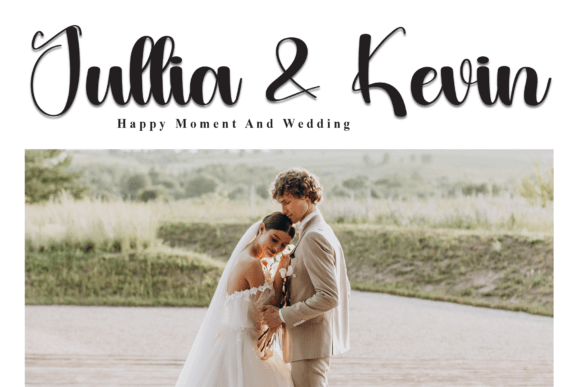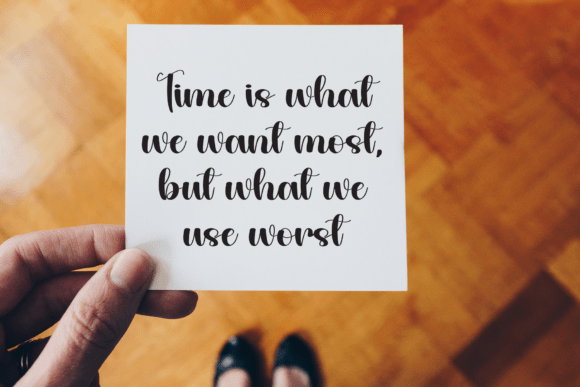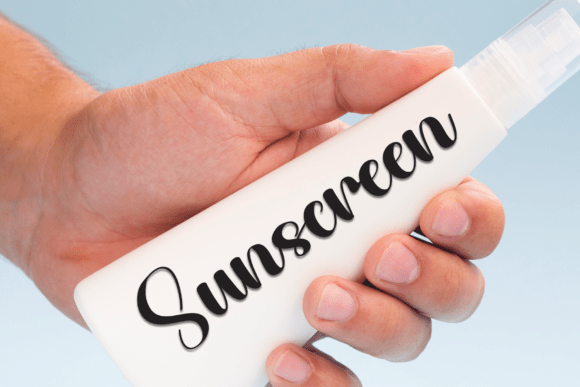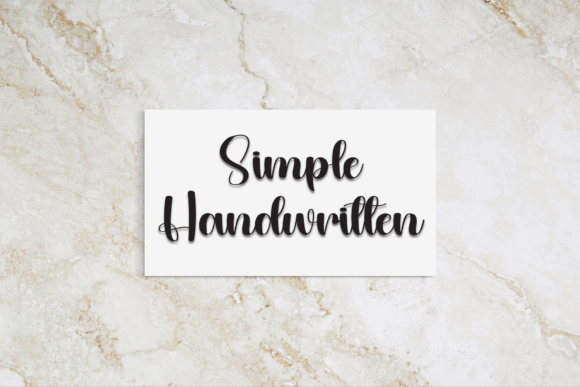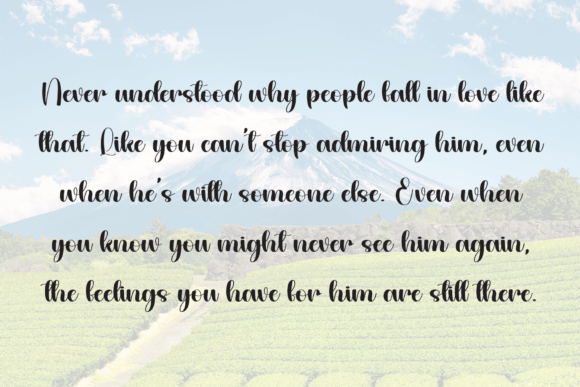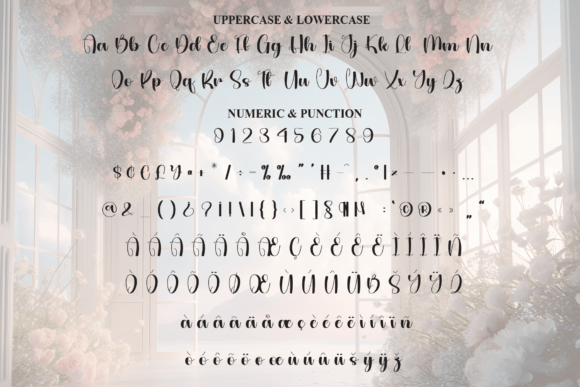
Dreamy Font: Elevate Your Designs with Elegant Handwritten Charm
Are you searching for a font that adds a touch of natural elegance to your creative projects? Look no further than the Dreamy Font. This beautiful, handwritten font is designed to bring a sense of sophistication and charm to your designs, making it perfect for a wide range of applications, from wedding invitations and logos to social media posts and branding.
The Beauty of Handwritten Elegance
The Dreamy Font is characterized by its smooth curves and authentic pen strokes, which give it a distinctly handwritten feel. This font is not just a collection of letters and numbers; it’s an expression of artistry and craftsmanship. Each letter is carefully designed to mimic the natural flow of handwriting, creating a sense of warmth and personality that digital fonts often lack.
One of the standout features of the Dreamy Font is its ability to convey a sense of elegance and sophistication. The font’s graceful flow and legibility make it perfect for designs where you want to make a lasting impression. Whether you’re creating wedding invitations, branding materials, or social media graphics, this font will help you achieve a level of refinement and poise that’s hard to match.
The versatility of the Dreamy Font is one of its most appealing qualities. This font is suitable for a wide range of applications, including:
- Wedding Invitations: Add a touch of romance and elegance to your wedding invitations with the Dreamy Font. Its beautiful, flowing script is perfect for creating memorable and stylish wedding stationery.
- Logos: Create a lasting impression with a logo that features the Dreamy Font. Its unique blend of elegance and personality makes it perfect for businesses that want to stand out from the crowd.
- Social Media Posts: Elevate your social media graphics with the Dreamy Font. Whether you’re creating promotional graphics, quotes, or announcements, this font will help you add a touch of sophistication and style.
- Branding: Develop a strong brand identity with the Dreamy Font. Its elegant, handwritten style is perfect for creating a cohesive and recognizable brand image.
Why Choose the Dreamy Font?
There are many fonts available that claim to offer an elegant, handwritten style, but the Dreamy Font stands out from the crowd. Here are just a few reasons why:
- Unique Design: The Dreamy Font features a unique design that’s both elegant and authentic. Its smooth curves and pen strokes give it a distinctly handwritten feel that’s hard to replicate.
- Legibility: One of the biggest challenges with handwritten fonts is legibility. The Dreamy Font is carefully designed to be easy to read, making it perfect for designs where you need to communicate a message clearly.
- Timeless Style: The Dreamy Font has a timeless quality that ensures it will never go out of style. Its elegant, flowing script is perfect for designs that need to stand the test of time.
Tips for Using the Dreamy Font
To get the most out of the Dreamy Font, here are a few tips to keep in mind:
- Use it Sparingly: While the Dreamy Font is beautiful, it’s best used sparingly. Use it as a headline font or for key messages to create a lasting impression.
- Pair it with Other Fonts: The Dreamy Font pairs well with a range of other fonts. Experiment with different combinations to find the perfect balance for your design.
- Experiment with Colors: The Dreamy Font looks great in a range of colors. Experiment with different shades and combinations to find the perfect look for your design.
In conclusion, the Dreamy Font is a beautiful, elegant font that’s perfect for designers and crafters looking to add a touch of sophistication and charm to their creative projects. Its smooth curves, authentic pen strokes, and timeless style make it a versatile font that’s suitable for a wide range of applications. Whether you’re creating wedding invitations, logos, social media posts, or branding materials, the Dreamy Font is sure to deliver a lasting impression.